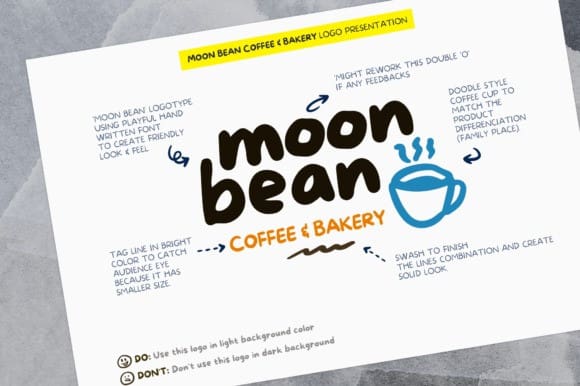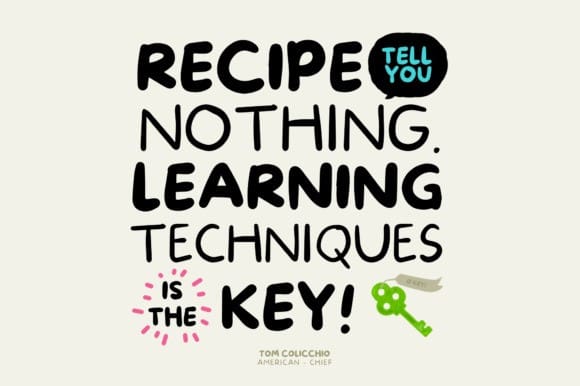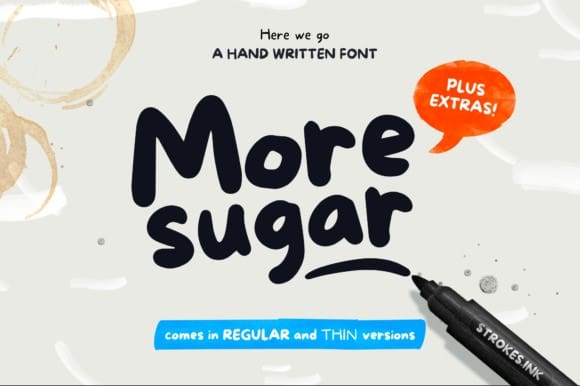
More Sugar Font
More Sugar Font is a fun and bouncy handwritten font, capable of making your designs have a simple but nuanced design. The natural strokes create a casual feel that works well across a wide range of projects, most particularly with lighthearted packaging designs.